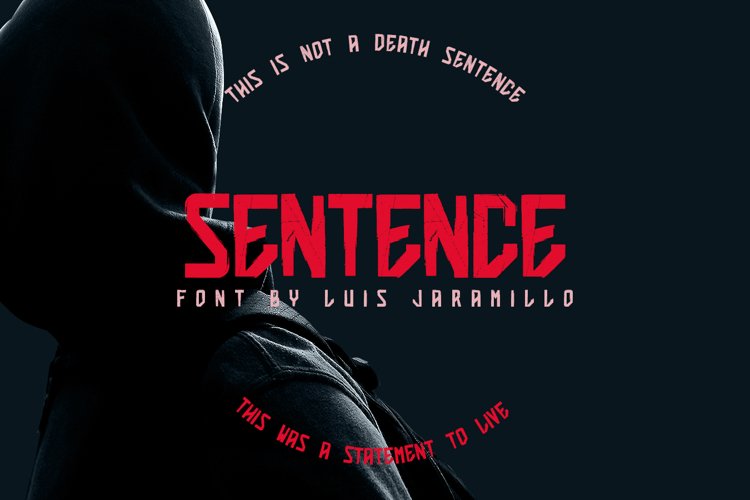
Sentence is a typographic font based on fonts previously created by LJ Design Studios, this font is created with a suitable brush style by Luis Jaramillo to give it a stroke style and brush strokes texture.
It sounds like an ideal font for artistic compositions geared toward rock music, but it works with your other ideas too.
Sentence es una fuente tipográfica basada en fuentes creadas anteriormente por LJ Design Studios, esta fuente es creada con un estilo de pincel adecuado por Luis Jaramillo para darle un estilo de trazo y textura de brochazos.
Parece una fuente ideal para composiciones artísticas dirigidas a la música rock, pero también funciona con tus otras ideas.